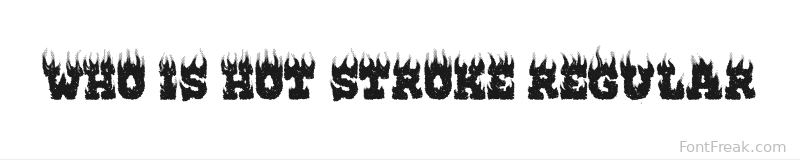
WHO IS HOT STROKE Regular
The WHO IS HOT STROKE Regular font by Billy Argel Fonts is a striking display typeface that falls into the decorative category. This font captivates with its unique flame-like design, characterized by bold stroke weights and an edgy, animated appearance. The high contrast between the thick and thin parts of the letters gives it a dynamic feel, while the slightly irregular spacing adds to its artistic flair. Each character features decorative elements that evoke a sense of excitement and energy, making it perfect for projects that aim to grab attention.
This font is particularly well-suited for a variety of creative applications. It shines in contexts such as movie posters, where its bold styling can evoke the thrills of action or horror genres. Similarly, it can enhance the visual appeal of music festival promotional materials, capturing the spirit of fun and celebration. Additionally, restaurant menus that want to convey a casual or fiery theme can benefit from its distinctive look. Small business owners looking to create brand identities that stand out in a crowded market will also find it useful for logos and signage. Content creators will appreciate its ability to inject personality into social media graphics and promotional materials.
The target audience for the WHO IS HOT STROKE Regular font includes graphic designers, small business owners, and content creators who seek to infuse their work with a sense of boldness and creativity. This font stands out due to its unique design and versatility, making it a fantastic choice for anyone looking to make a memorable impression. For those interested in exploring this eye-catching typeface, a WHO IS HOT STROKE Regular font free download is available, allowing users to incorporate this dynamic design into their projects easily.